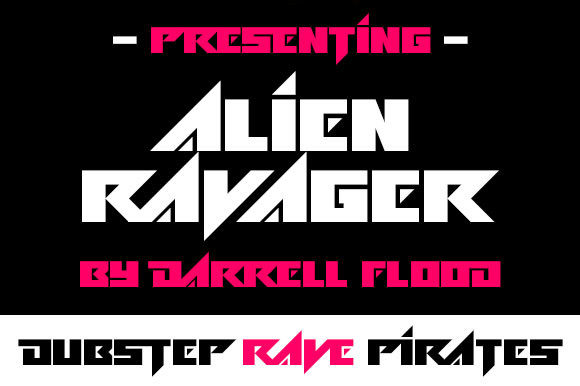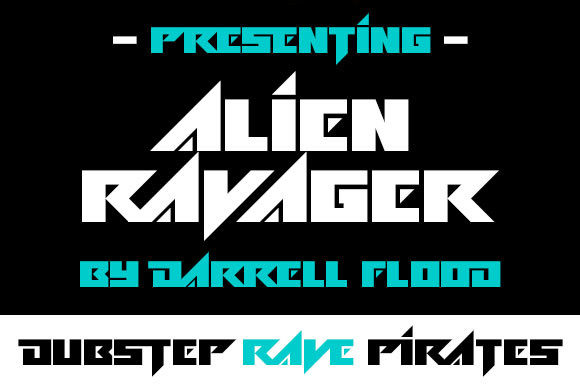
The Alien Encounter: Discovering the Energetic Alien Ravager Font
I’ll never forget the design project that led me to discover the Alien Ravager font. I was working on a futuristic-themed poster for a client who wanted to evoke a sense of otherworldly exploration. As I scoured the internet for the perfect font, I stumbled upon Alien Ravager. Its sleek, modern style and energetic vibe immediately caught my attention. I knew I had found the perfect match for my project.
An Honest Review of Alien Ravager
• ✨ Energetic and angular design that screams futuristic and high-tech
• ✅ Perfect for attention-grabbing headlines and titles
• 🔥 Great for creating a sense of excitement and dynamism in designs
• 🌌 Versatile and suitable for various themes, from alien encounters to rave gigs
While Alien Ravager is an amazing font, there are a few things to keep in mind:
• ⚠️ Limited use of lowercase letters, which might make it less suitable for body text
• 🤔 Some users might find the font a bit too bold or overpowering for certain designs
4. Experiment with OpenType features, such as glyphs and stylistic alternates, to add more personality to your text.
The Backstory of Alien Ravager
Alien Ravager was designed by a team of creatives who wanted to capture the essence of futuristic and high-tech themes. Inspired by the sleek lines and angular shapes of sci-fi movies and video games, they created a font that’s both energetic and modern. The result is a versatile font that’s perfect for a wide range of design projects.
Q: What type of projects is Alien Ravager best suited for?
A: Alien Ravager is perfect for projects that require a futuristic and high-tech feel, such as alien encounters, space exploration, and rave gigs.
Q: Is Alien Ravager a difficult font to use?
A: No, Alien Ravager is relatively easy to use, even for beginners. Its simple and intuitive design makes it easy to work with.